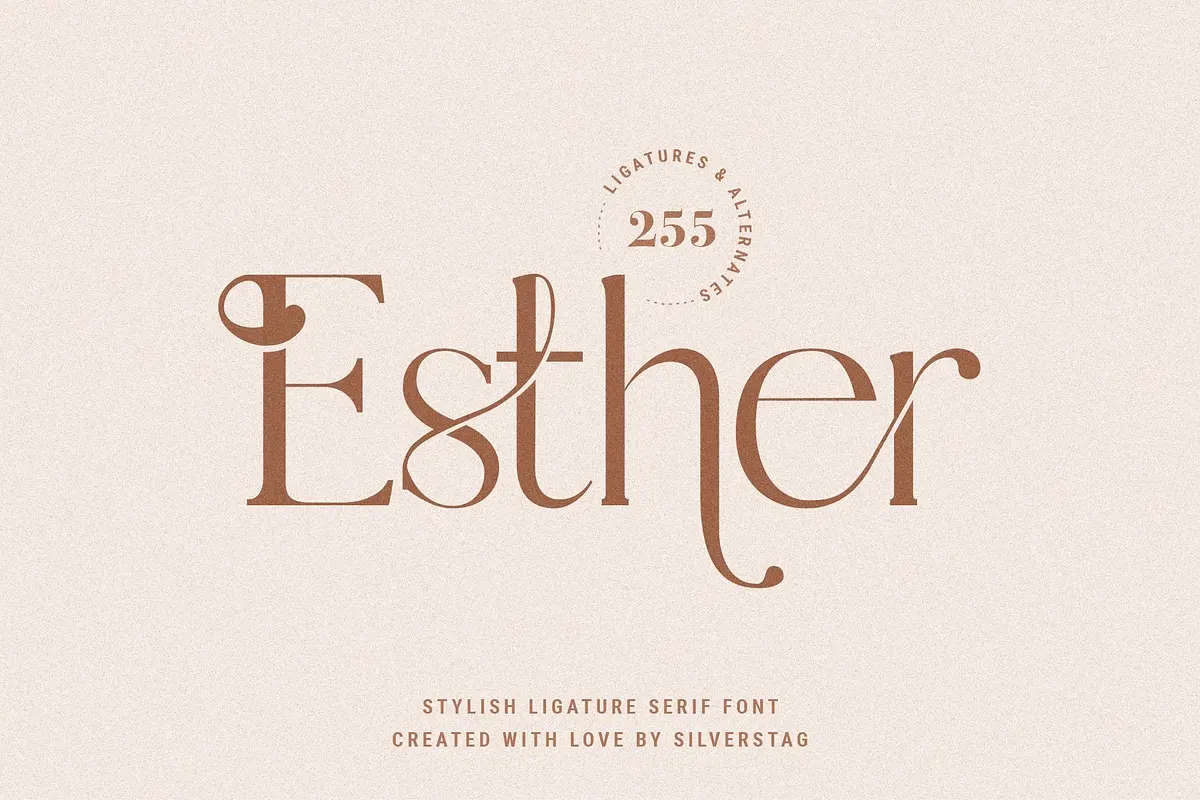
Esther - Stylish Ligature Serif Font Free Download
Esther - Stylish Ligature Serif Font Free Download is an elegant and sophisticated typeface designed to elevate your creative projects with a touch of class. Featuring over 250 ligatures and alternate characters, Esther offers a unique blend of classic serif aesthetics and modern design elements, making it ideal for branding, wedding invitations, social media graphics, and more.
Created by SilverStag, Esther - Stylish Ligature Serif Font Free Download includes uppercase and lowercase letters, numerals, punctuation, accented characters, and a web font kit. Its extensive character set and multilingual support ensure versatility across various design applications.